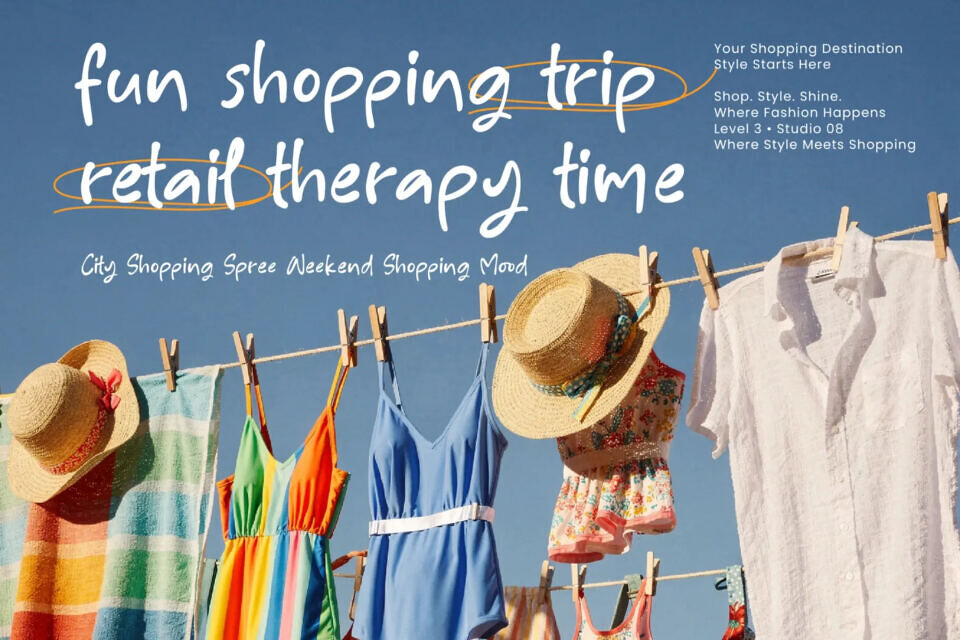
Elevate your brand with a unique, handwritten font that balances professionalism with a personal touch. With 338 characters and 27 custom ligatures, this font is perfect for luxury branding, packaging, and editorial layouts.
Its multilingual support makes it versatile for global projects, allowing you to convey your message clearly across languages and cultures. Invest in this premium font to add a touch of sophistication and warmth to your designs, and deliver high-impact results across digital and print media.